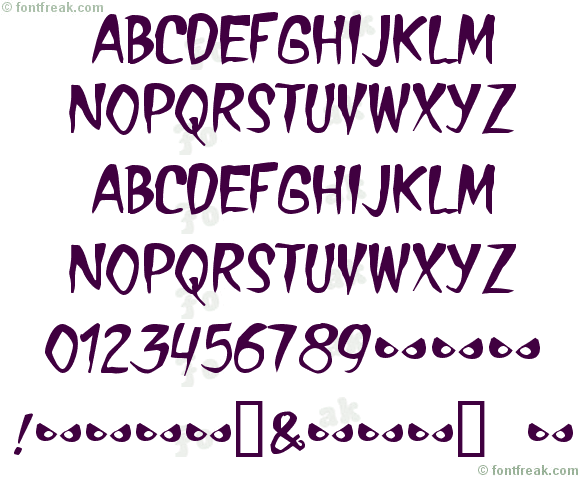
Treasure
About Treasure
The Treasure font by Pizzadude is a captivating display typeface that embodies a playful and adventurous spirit. This decorative font showcases a unique, hand-drawn style with irregular, wide strokes that give it a distinct personality. The uneven baseline and varied stroke weights create a sense of dynamism, making each letter appear as if it has been crafted with care and creativity. The spacing between characters is thoughtfully designed to enhance readability while maintaining a whimsical feel, making it ideal for attention-grabbing applications.
Best suited for creative projects such as treasure maps, themed party invitations, and children's book covers, the Treasure font invites a sense of fun and exploration. Its playful nature makes it perfect for restaurant menus, particularly for those with a quirky or adventurous culinary theme. Graphic designers and content creators looking to add a touch of whimsy to their work will find this font particularly appealing, as it can elevate the visual impact of various designs. Small business owners aiming to convey a friendly and approachable brand identity will also benefit from the charm of this typeface.
In a crowded market of fonts, the Treasure font stands out due to its distinctive hand-crafted aesthetic and versatile applications. Its unique character design not only captures attention but also conveys a playful narrative that resonates with audiences. Whether used in print or digital media, this font adds a layer of creativity that enhances any project. For those interested in incorporating this delightful typeface into their work, the Treasure font free download is readily available, making it accessible for all your design needs.